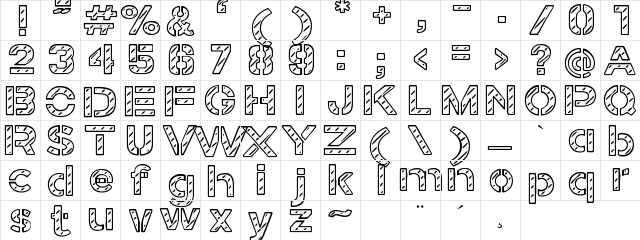
Stamped Navy Font Regular
Design Context for Stamped Navy Font Typeface
Stamped Navy Font has the rough pragmatism of spray-painted stencil signage, adding a raw, street-level authenticity to designs.
A strong choice for packaging that needs edge, warehouse aesthetics, and rough-and-ready visual identities.
Pro Tip: Use Stamped Navy Font at large sizes on packaging, posters, or apparel where the stencil cutaways read clearly. Avoid small sizes where those gaps become visual noise.